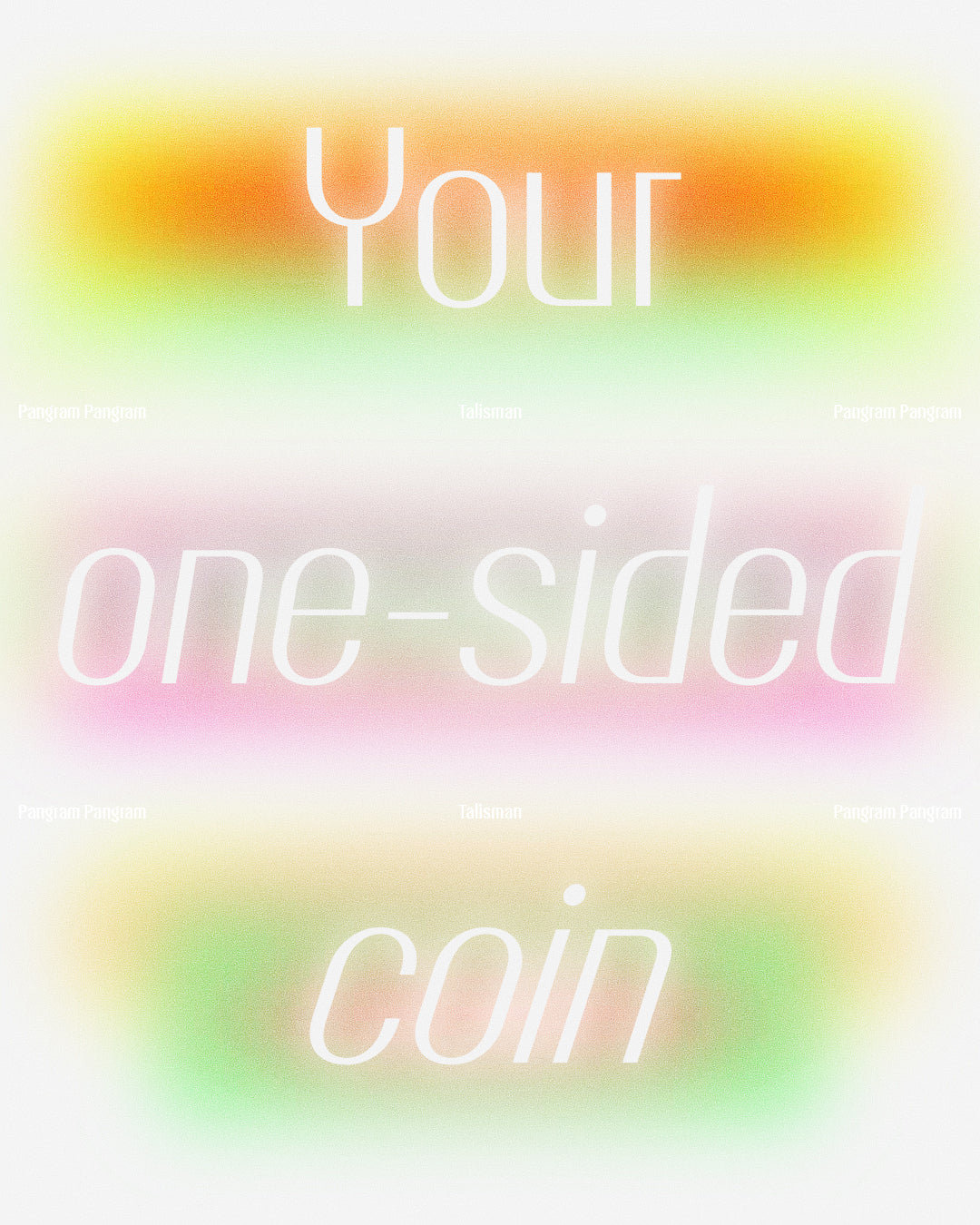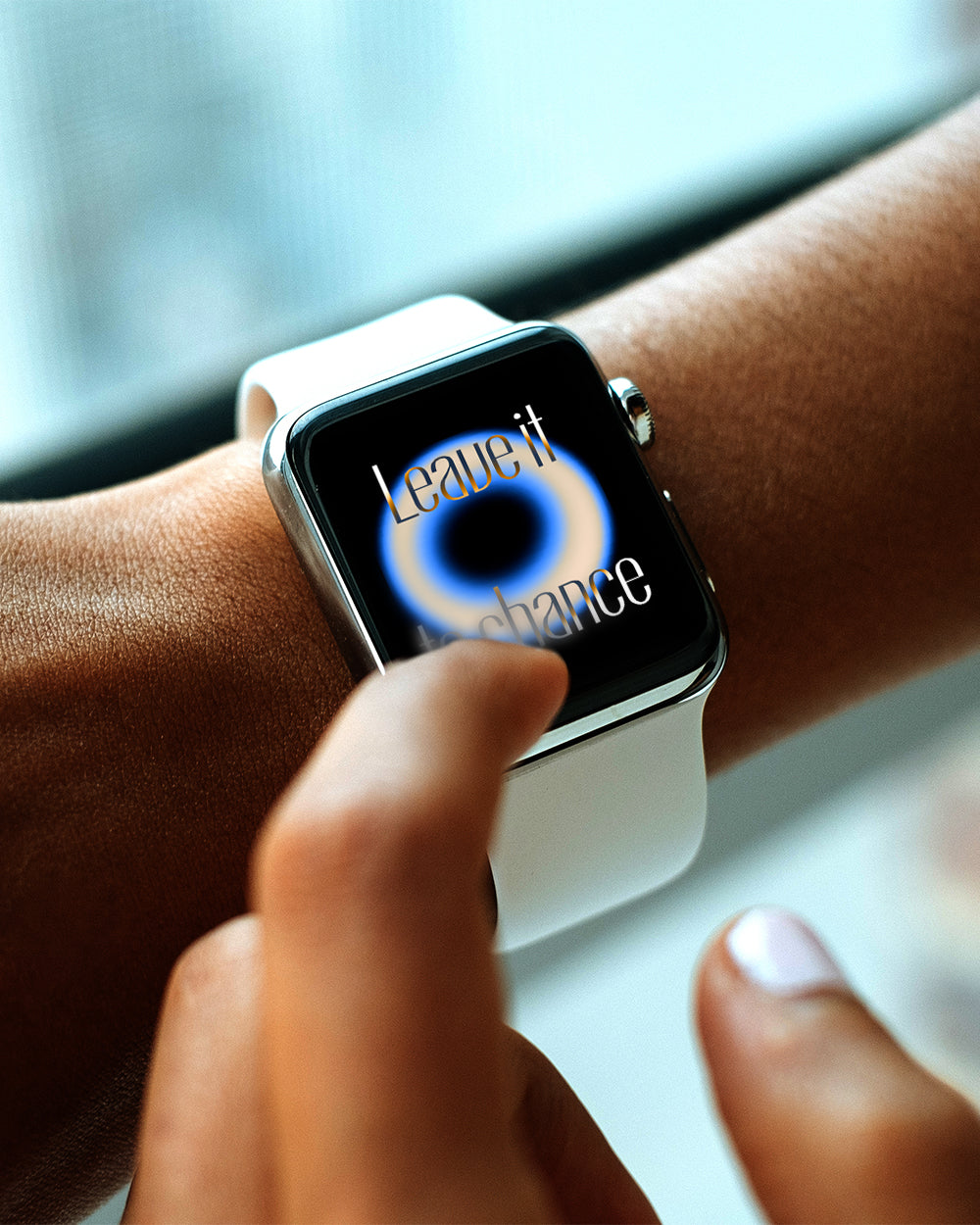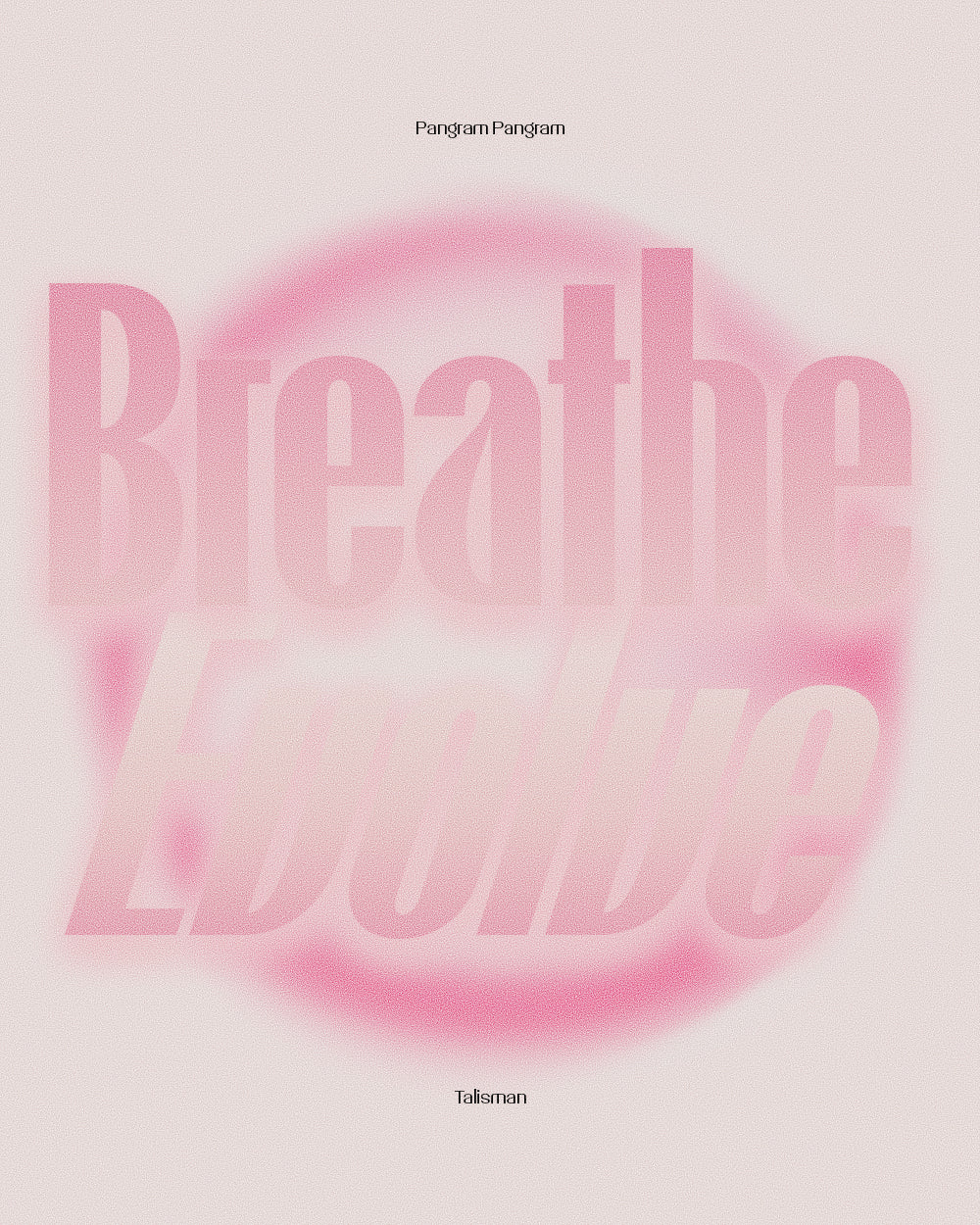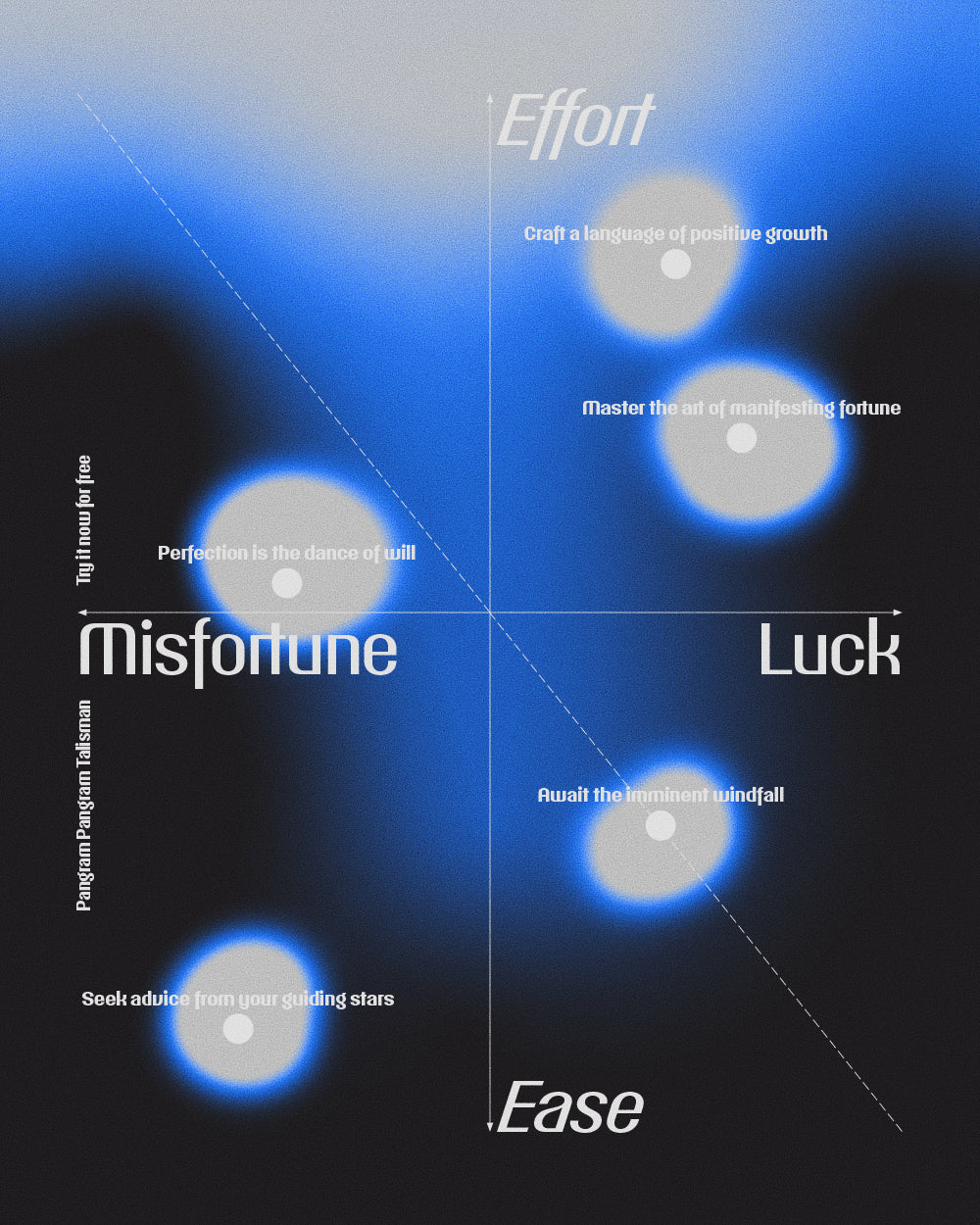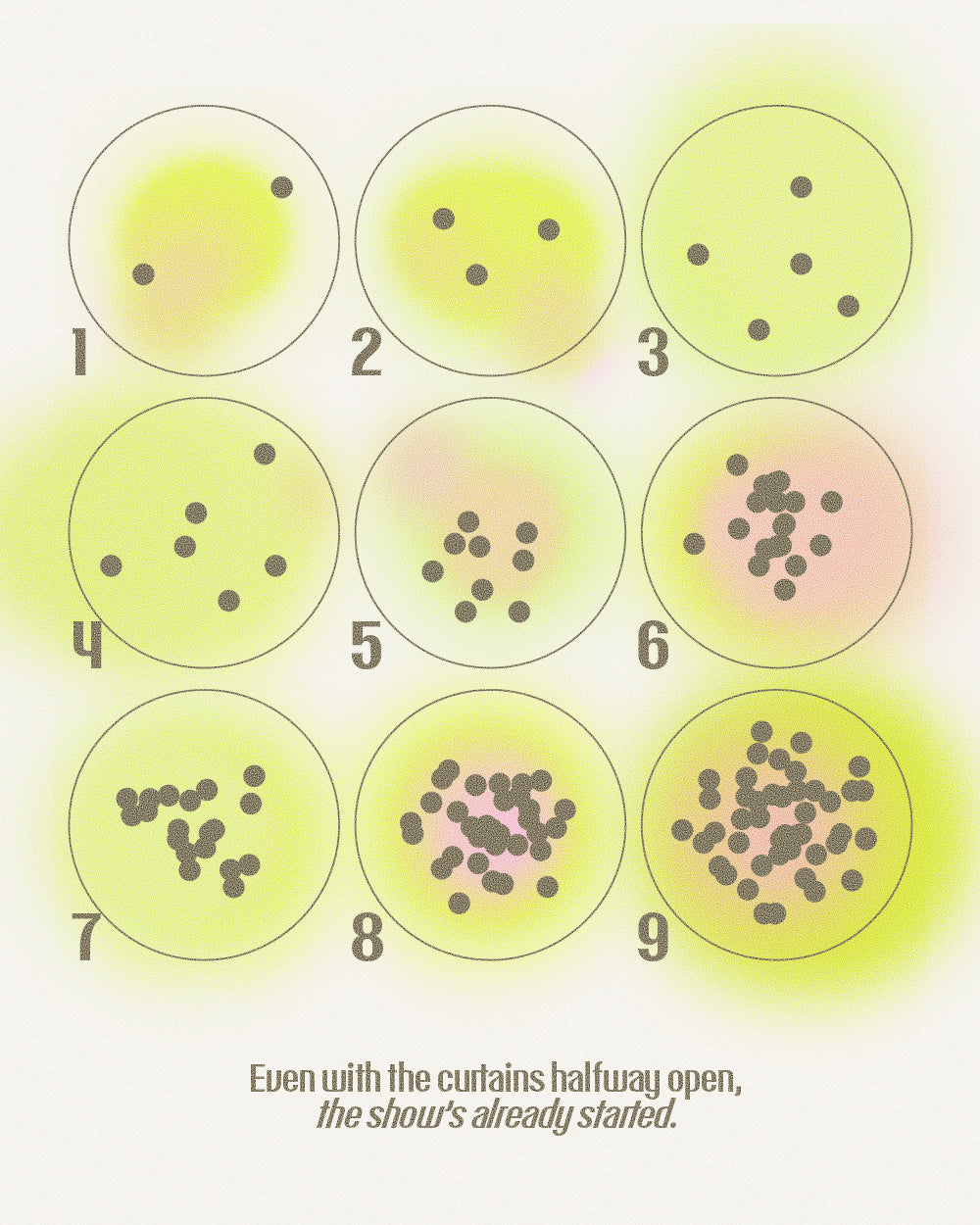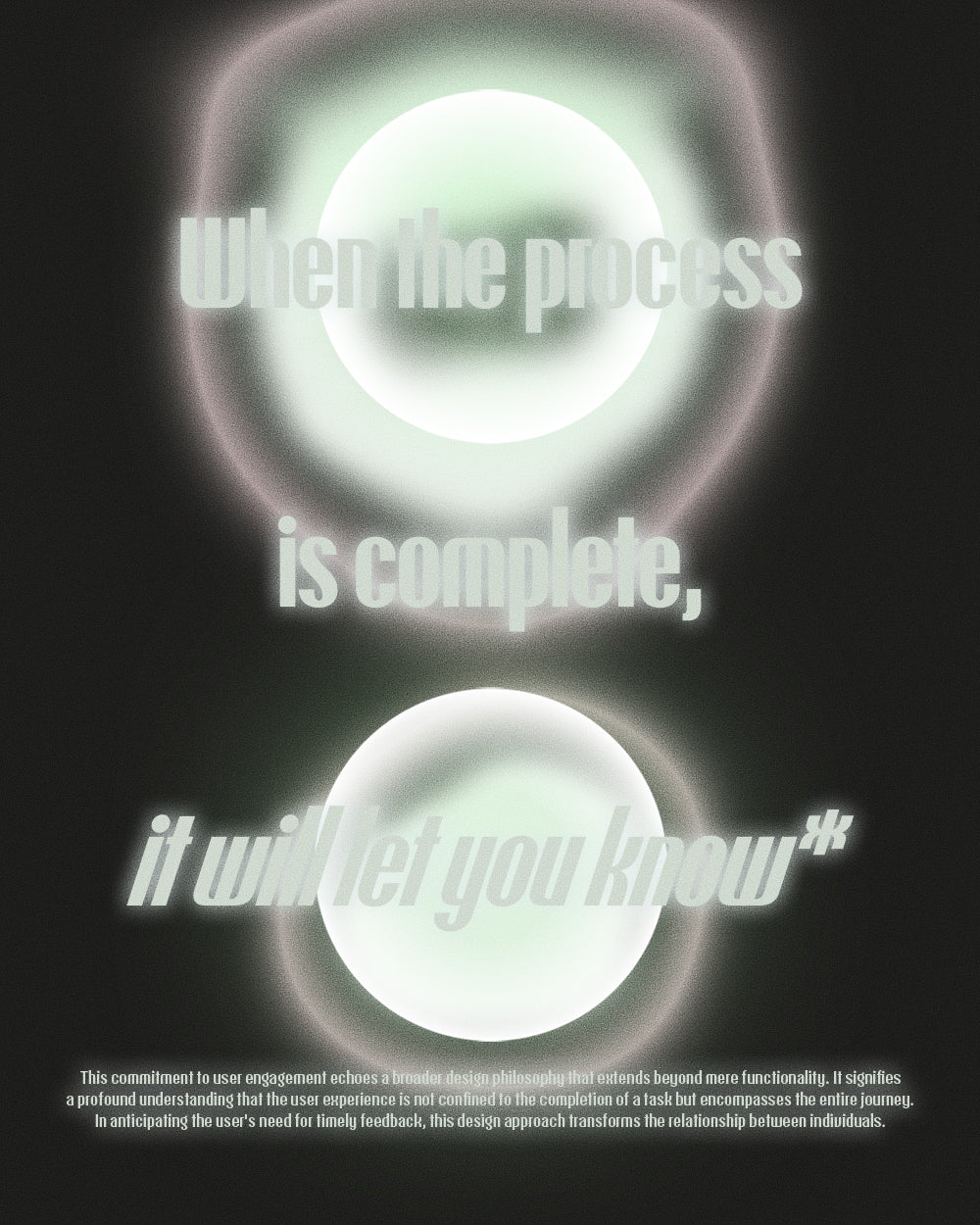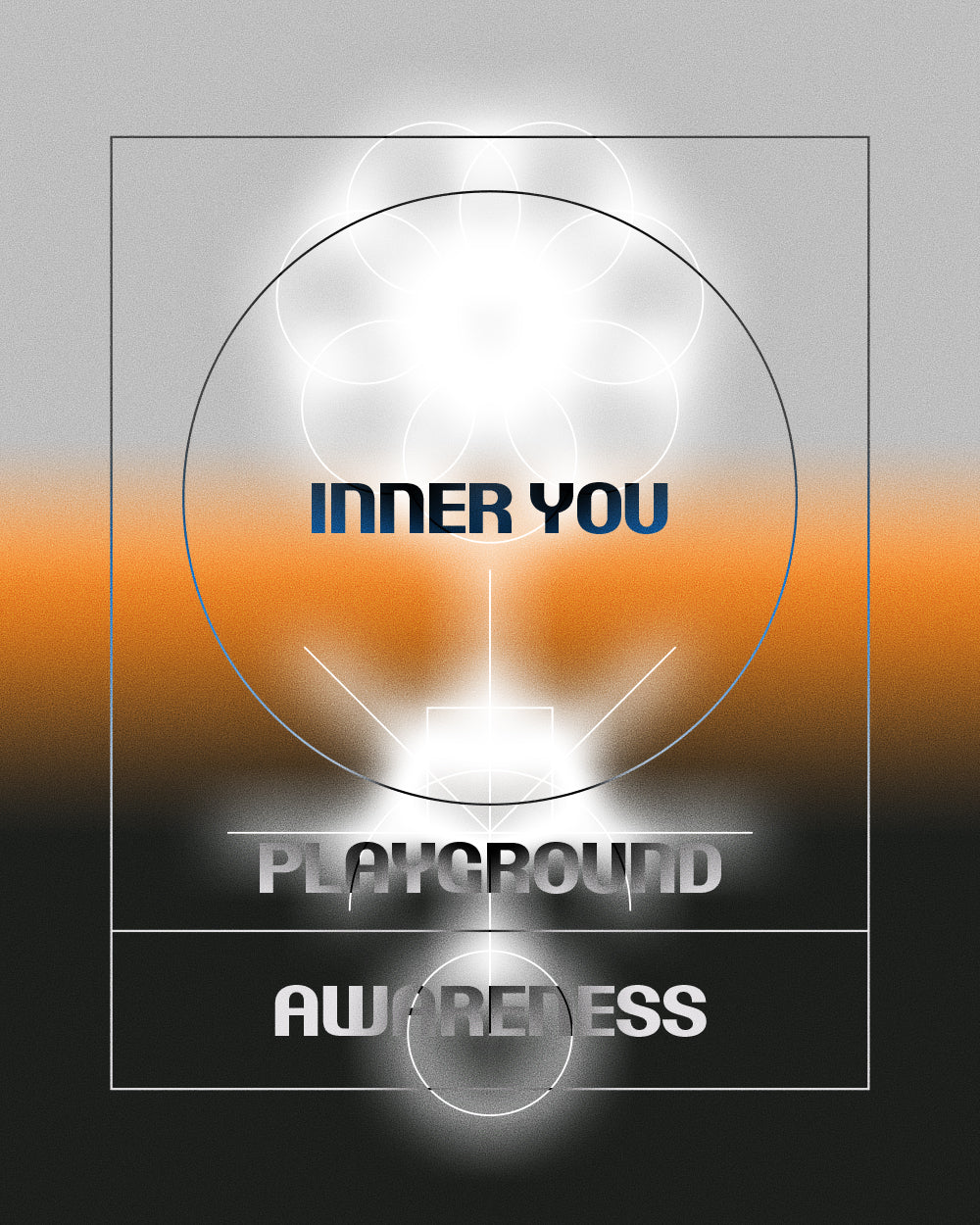
Talisman
Created with versatility in mind, Talisman's generous range of weights and widths ensure a great variety of visual expressions, only made more vibrant by its dashing oblique counterpart.
A lucky font to carry around
Created with versatility in mind, Talisman's generous range of weights and widths ensure a great variety of visual expressions, only made more vibrant by its dashing oblique counterpart. It is a typeface ready to become the protagonist of a designer's most successful endeavors, an amulet to keep in one's pocket at all times, both as a first and as a last creative resort.
Including Italics